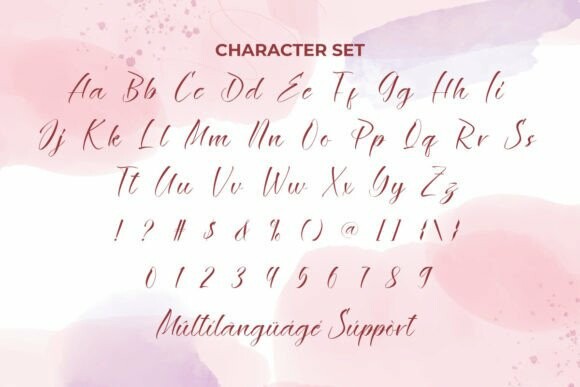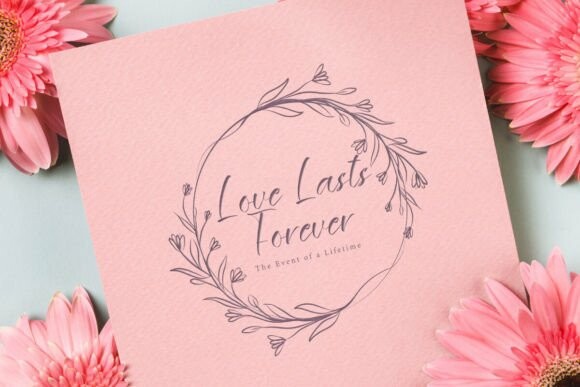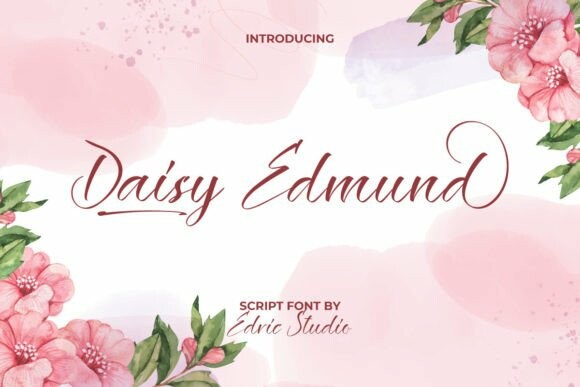
Daisy Edmund Font
Daisy Edmund Font is an elegant calligraphy script font inspired by beautiful daisies and flowers. This font has sleek and flowing brush strokes that will be awesome for Signature, brandings, invitations, posters, etc. The font is also generally suitable for many industries and businesses, such as authors, beauty clinics, craft, event organizers, florists, furniture, jewelry, organic products, photography, printing, publishing, real estate, restaurants, skin care, spa salons, wedding, writer, and much more.
Daisy Edmund Font comes with a full set of Uppercase and Lowercase Basic Characters, Numbers, a large range of Punctuation, and symbols. It has a stunning character set, perfectly managed with well-spaced and kerning. Daisy Edmund Font will be great for any project including brand logos, brochures, business cards, catalogs, covers, invitations, labels, menus, product packaging, quotes, stationery, stickers, titles, watermarks, websites, etc.